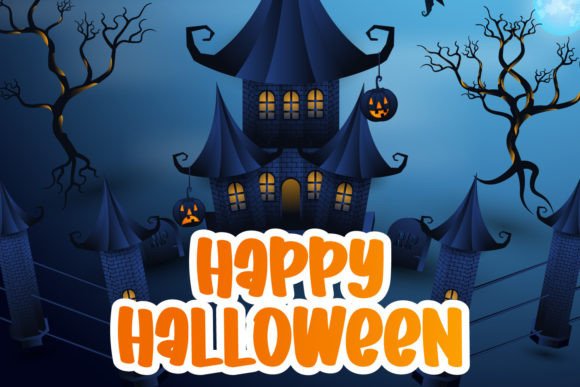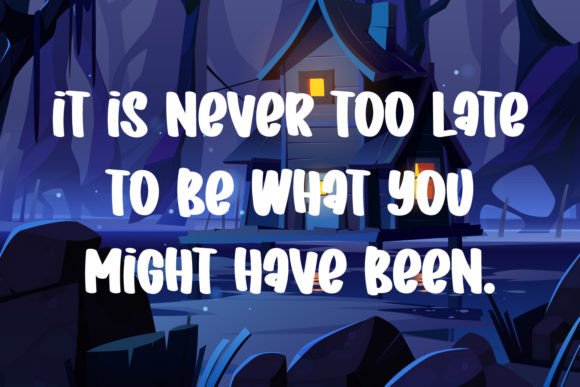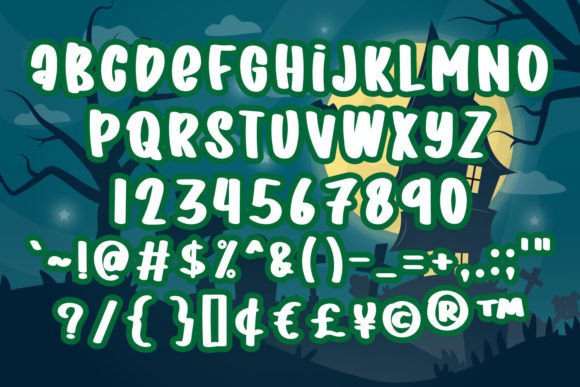
Introduction to Retro Mansion Font
You know that moment when you’re working on a creative project, and you just can’t seem to find the perfect font to bring it all together? The words are flowing, the design is coming together, but something’s missing – that special something that makes it truly pop. For designers, finding the right font can be a game-changer, and that’s exactly where the Retro Mansion Font comes in.
With its fun and playful display style, the Retro Mansion Font is the perfect addition to any design project that requires a trendy touch. Whether you’re working on a free download or a high-quality print project, this font has the potential to elevate your design to the next level. And the best part? It’s a valuable resource that can be used in a variety of creative ways, from digital designs with transparent backgrounds to print materials that demand attention.
As a valuable asset to any designer’s font library, the Retro Mansion Font is a must-have for anyone looking to add a little extra flair to their designs. So why settle for a bland, generic font when you can have a high-quality, eye-catching alternative? With the Retro Mansion Font, the possibilities are endless, and we’re excited to dive in and explore its many uses.
Key Features of Retro Mansion Font
- High-quality, vintage-inspired typography for creative projects and designs
- Available in 6 different font styles, each with its own unique characteristics and flair
- Designed to evoke a sense of nostalgia and elegance, perfect for luxury brands and high-end designs
Honest Review: Retro Mansion Font
I recently came across the Retro Mansion Font and I’m excited to share my thoughts on this unique design resource. This font has a lot of character and can add a touch of nostalgia to any creative project.
What works well: ✨ The Retro Mansion Font is free to download, making it an excellent choice for designers on a budget. The font is also available with a transparent background, giving users more flexibility when designing. The high-quality design and crisp lines make it perfect for use in a variety of creative projects.
However, there are a few limitations to consider: ⚠️ The font may not be suitable for use in professional or formal settings due to its retro aesthetic. Additionally, some users may find the font a bit too bold or eye-catching, so it’s essential to use it judiciously.
Overall, I’m impressed with the Retro Mansion Font and think it’s a great addition to any designer’s toolkit. With its unique design and high-quality construction, it’s a great choice for designers looking to add a touch of nostalgia to their projects.
- Unique retro aesthetic
Retro Mansion Font
Design Tips and Tricks
To get the most out of the Retro Mansion Font, use it with a transparent background to create a unique and eye-catching design. You can also use it in combination with other high-quality design resources to create a cohesive and creative project.
The Retro Mansion Font is ideal for use in creative projects such as wedding invitations, birthday party decorations, and vintage-themed posters. It’s also great for use in branding and marketing materials such as business cards, brochures, and websites.